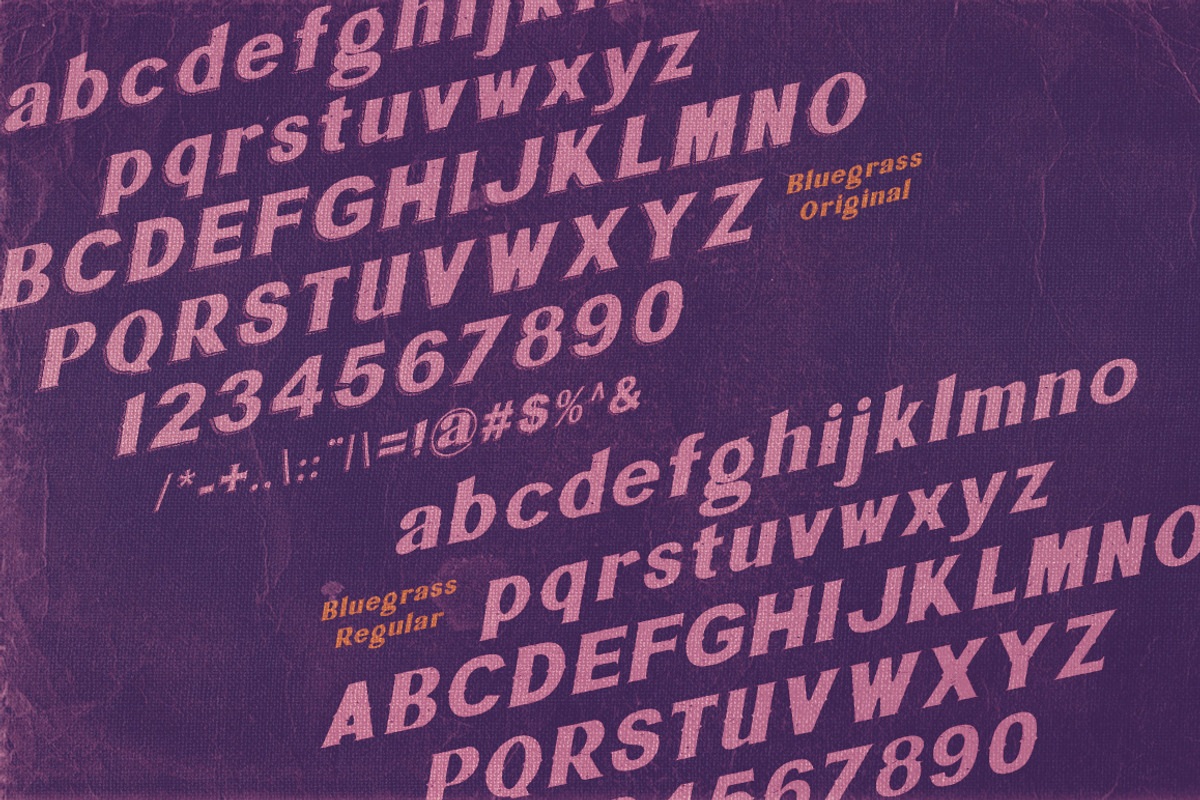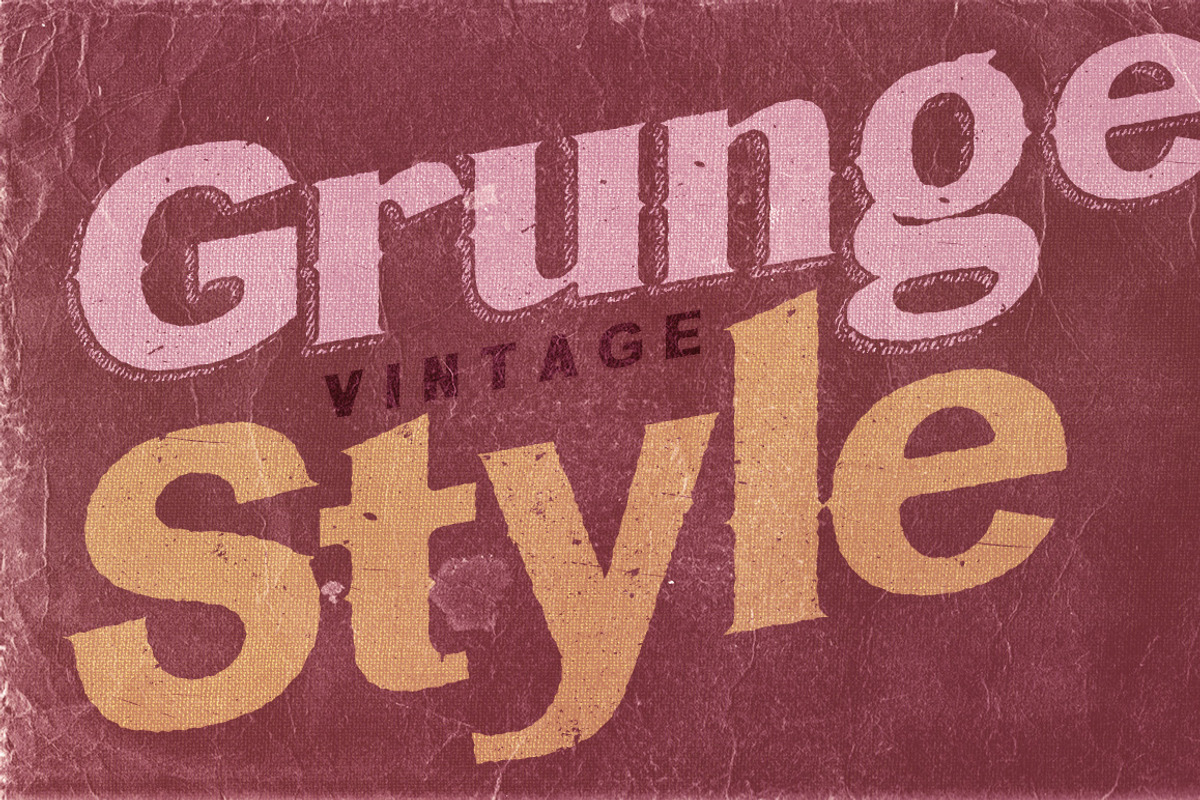
Bluegrass Font
Bluegrass Font by Cruzine is a font selected for branding, posters, packaging, typography.
Why Bluegrass Font is worth a look
Bluegrass Font by Cruzine fits naturally into Branding, posters, packaging, typography.